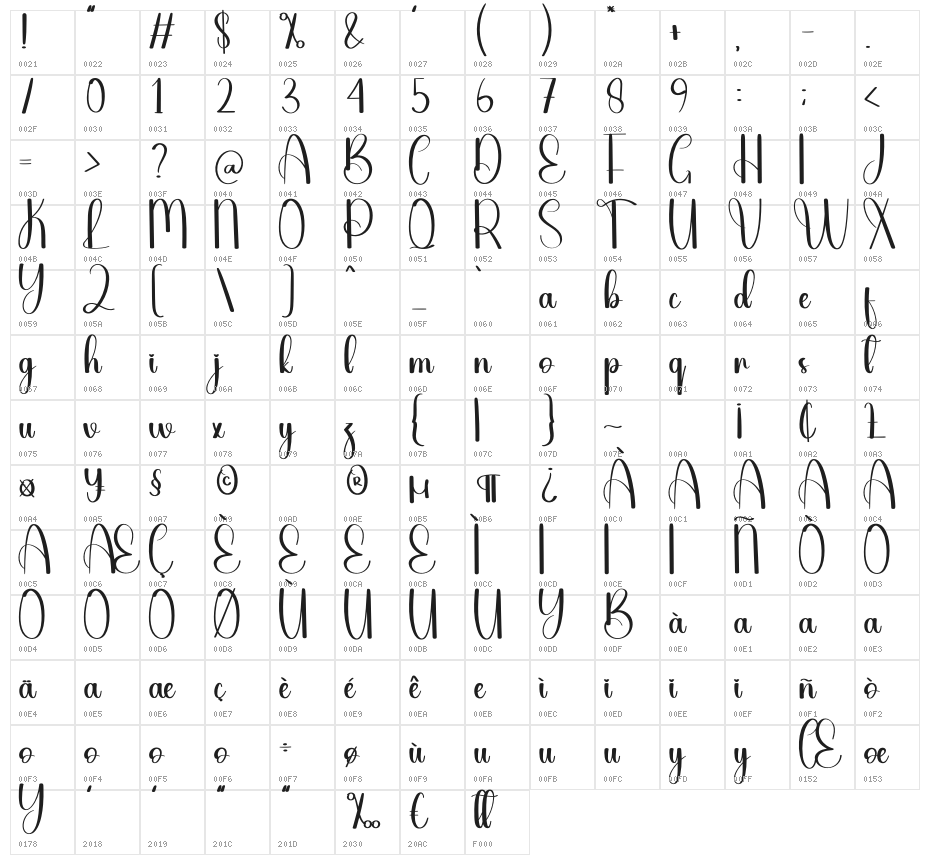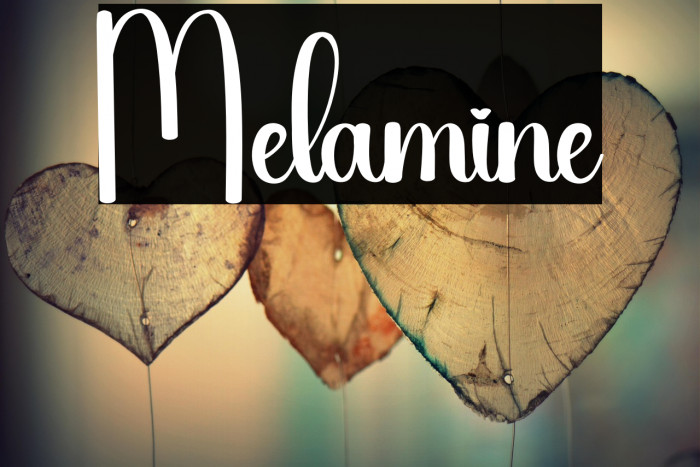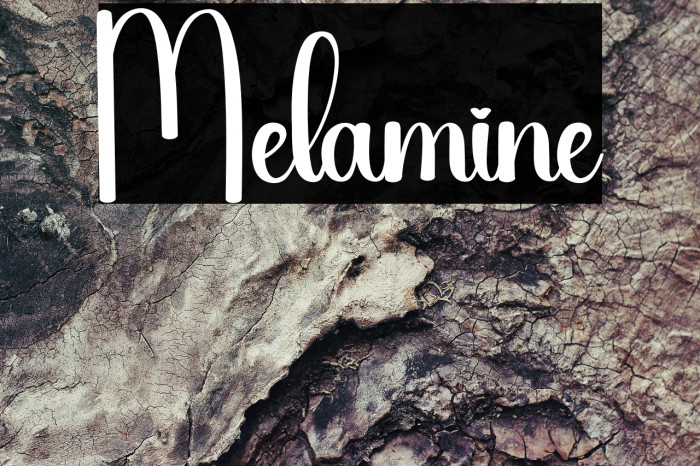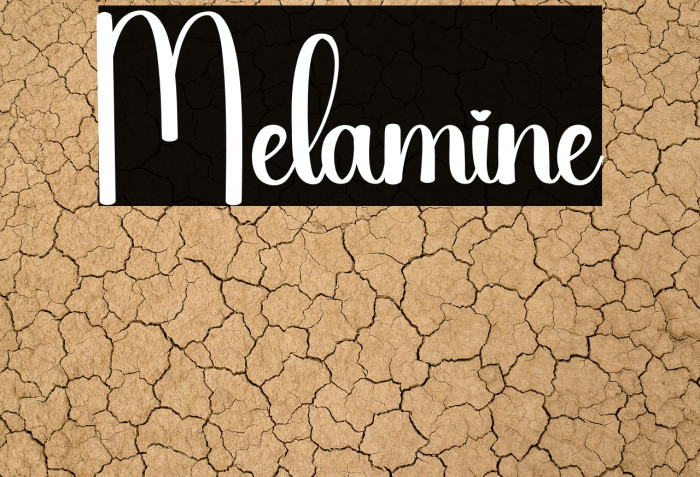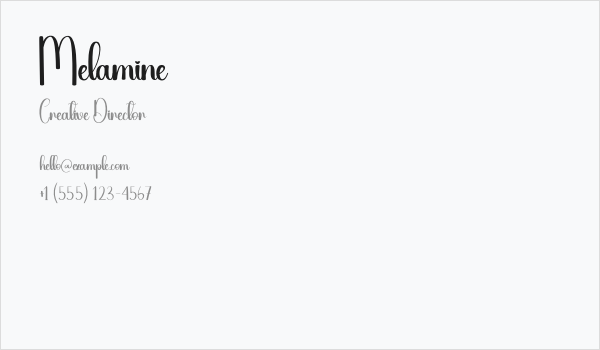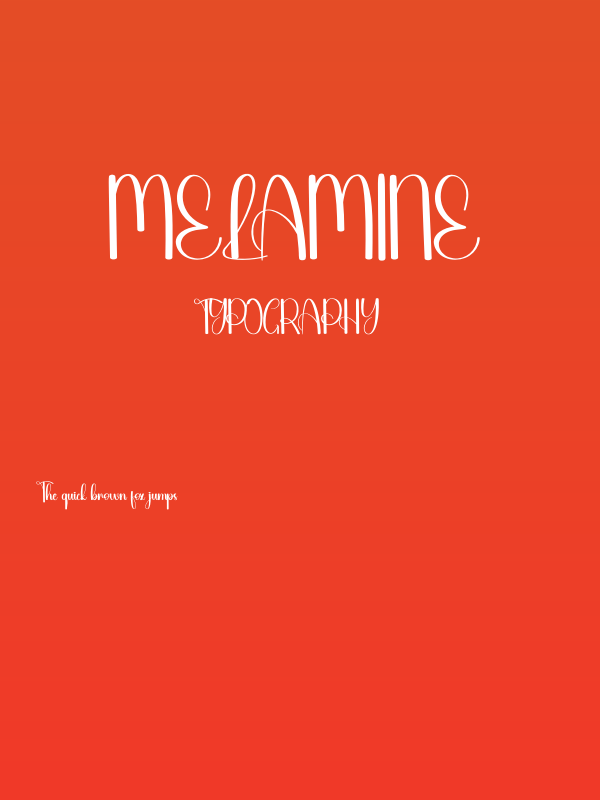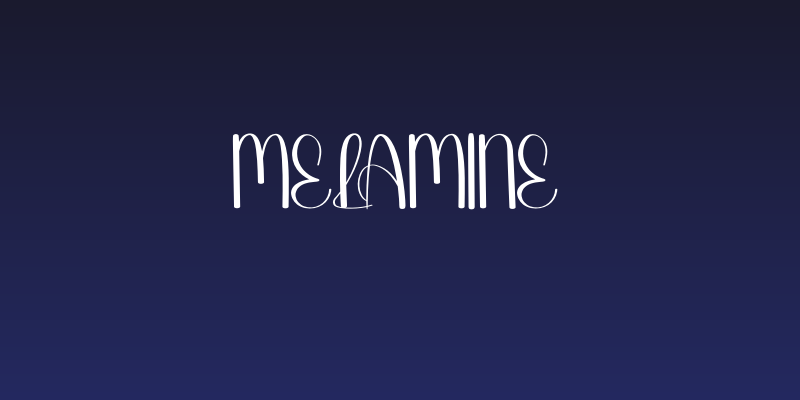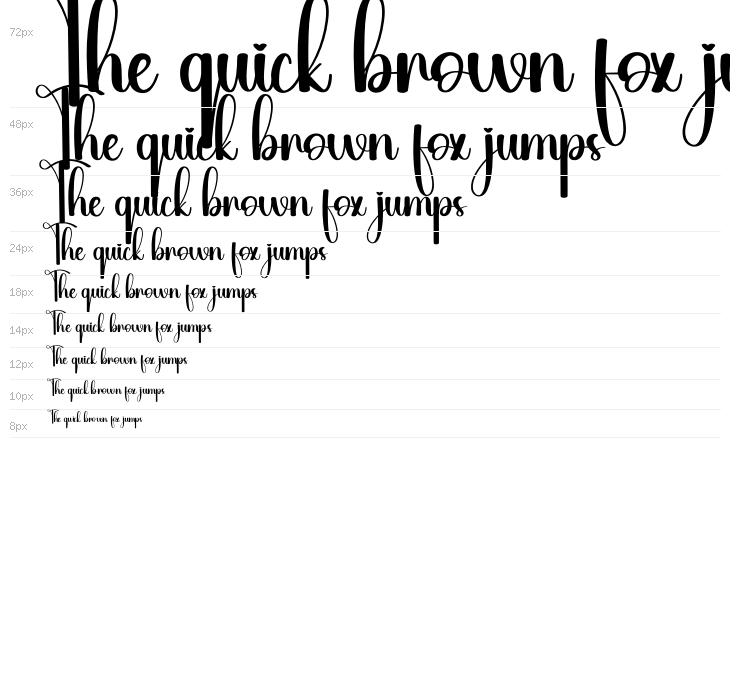
Melamine Font
Melamine Description
A decorative script font with high contrast and elegant, flowing lines. The characters are elongated with a playful, whimsical style.
| Width | Expanded |
| Use Case | Logos, Headlines |
| Proposed Projects | Invitations, greeting cards, branding. |